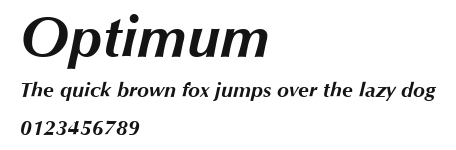
• Font Name: Optimum
• Full Font Name: Optimum Bold Italic
• PostScript Name: Optimum-BoldItalic
About Optimum.ttf
Optimum.ttf is a modern, elegant sans-serif font designed for ultimate readability and visual harmony. Perfect for branding, headlines, web design, and print materials.